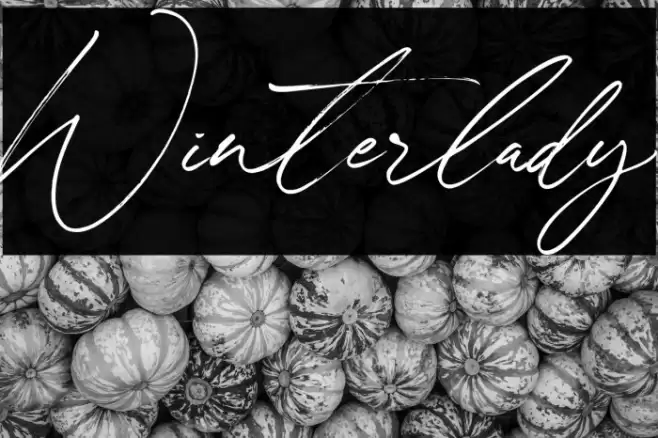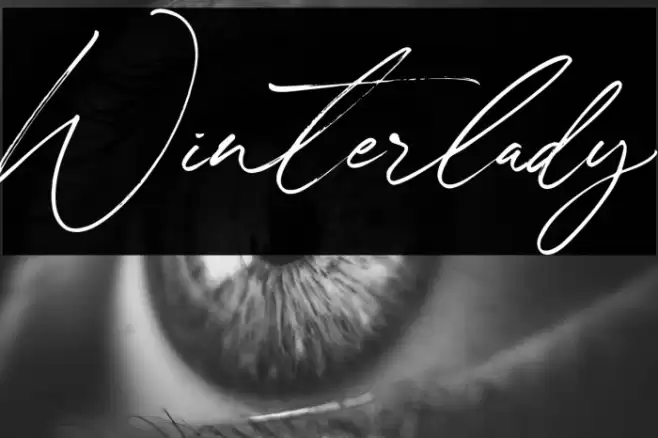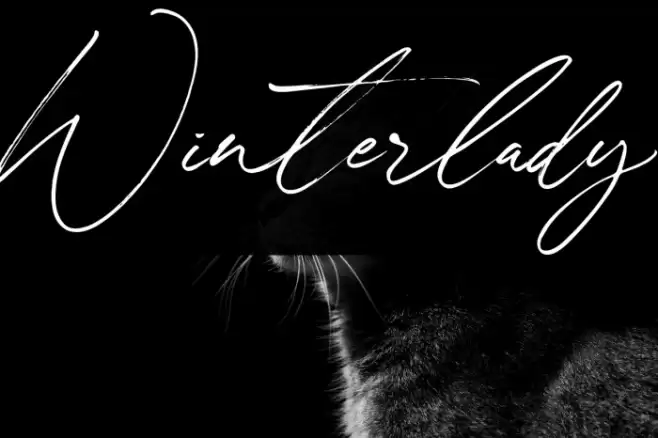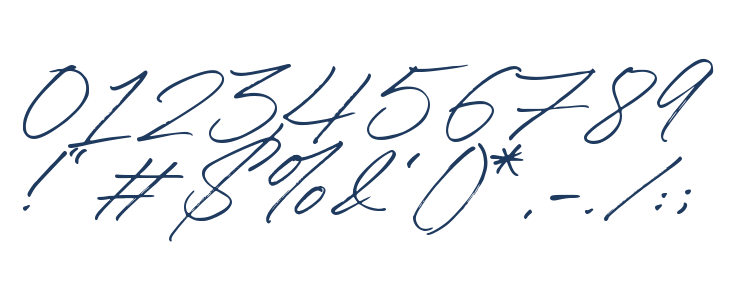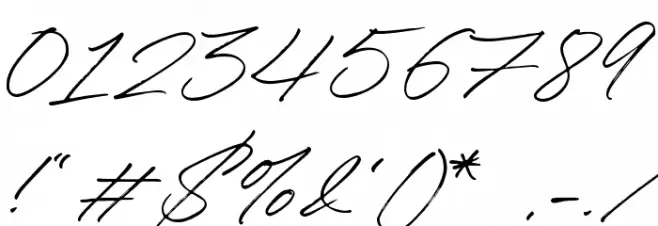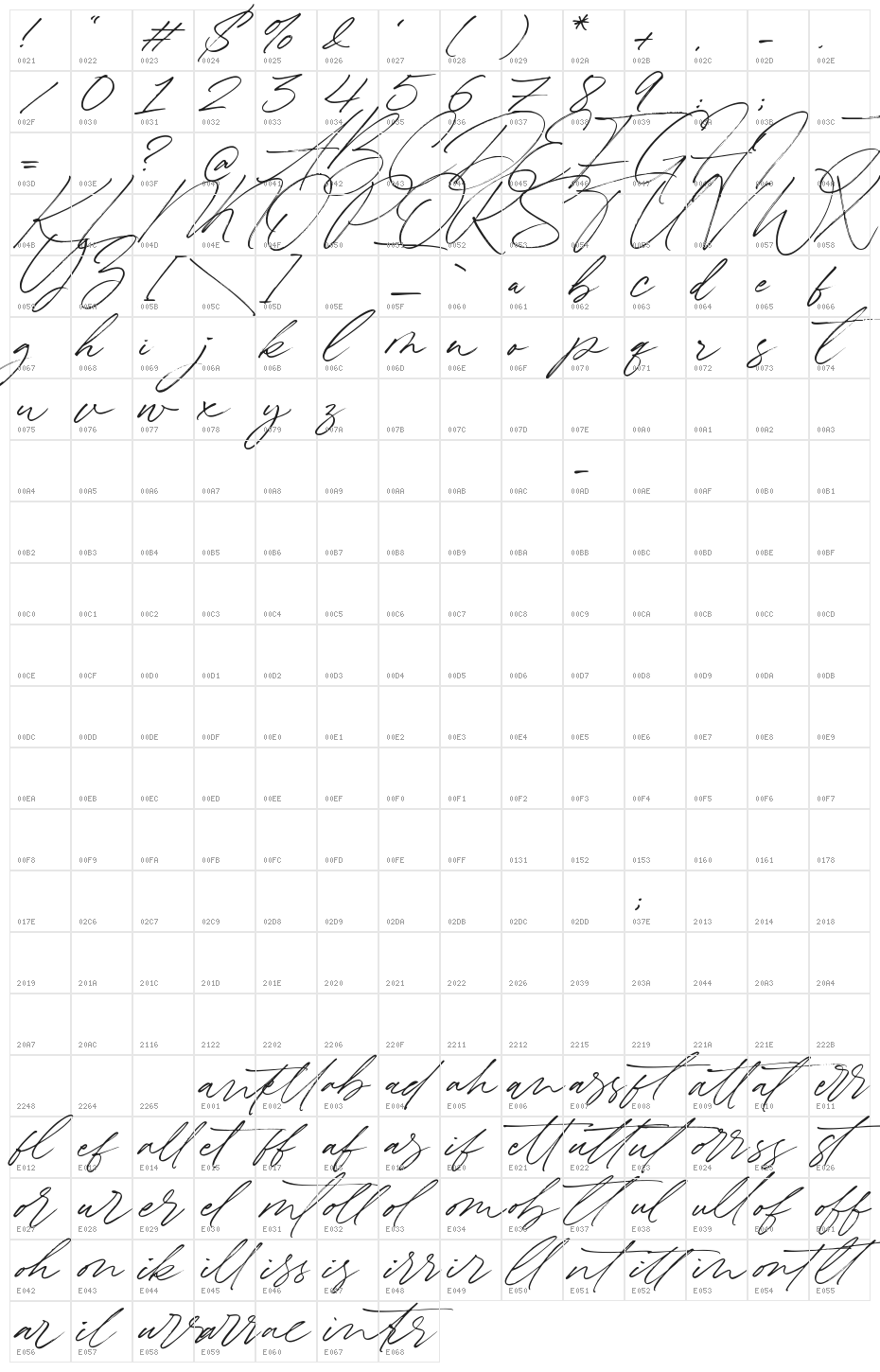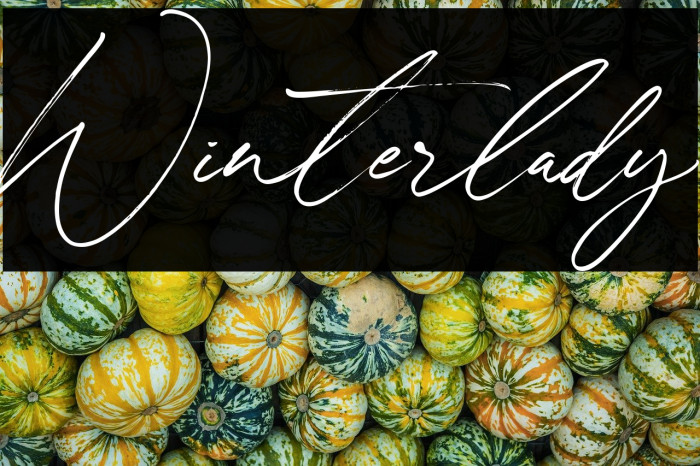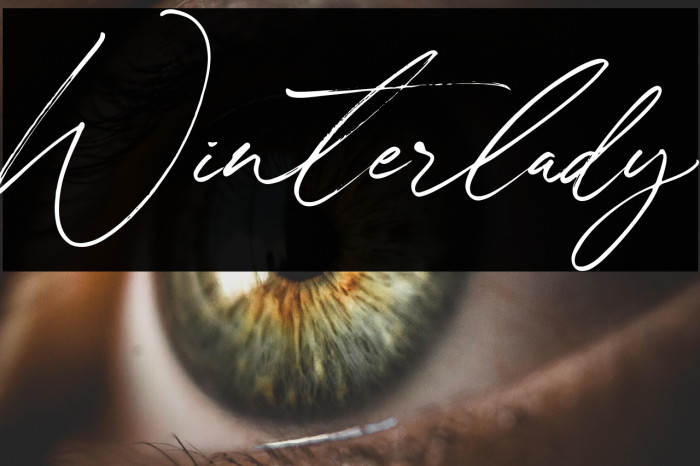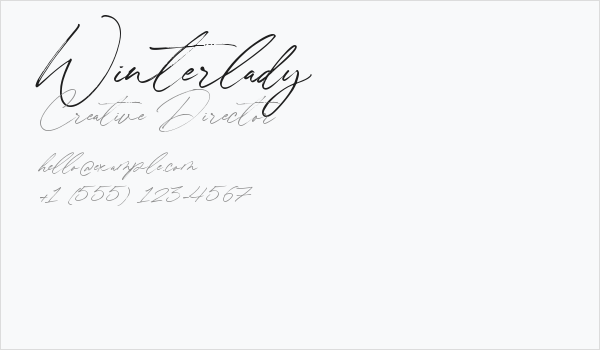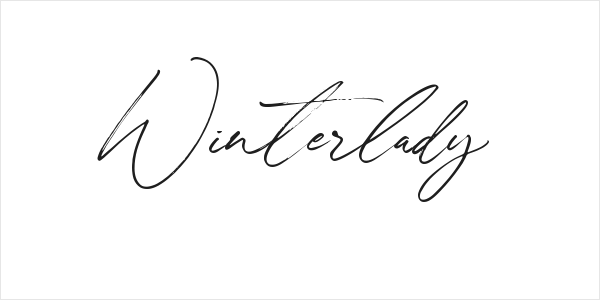
Winterlady Font
Winterlady Description
This elegant script font features a fluid, cursive style with a natural handwritten appearance. The letters are connected, creating a seamless flow that mimics the look of traditional calligraphy. The uppercase letters are slightly larger and more ornate, while the lowercase letters maintain a consistent, graceful form. The numerals and special characters are designed to complement the overall aesthetic, with a similar flowing style. The strokes vary in thickness, adding a dynamic and lively feel to the text. This font exudes sophistication and charm, making it ideal for projects that require a personal touch.
A fluid, cursive script font with a natural handwritten appearance from Uncategorized fonts.
- Proposed Projects: Ideal for wedding invitations, greeting cards, personal branding, and elegant packaging designs.
- Overall Style: Elegant, Handwritten
- Use Case: Logos, Invitations, Personal Branding